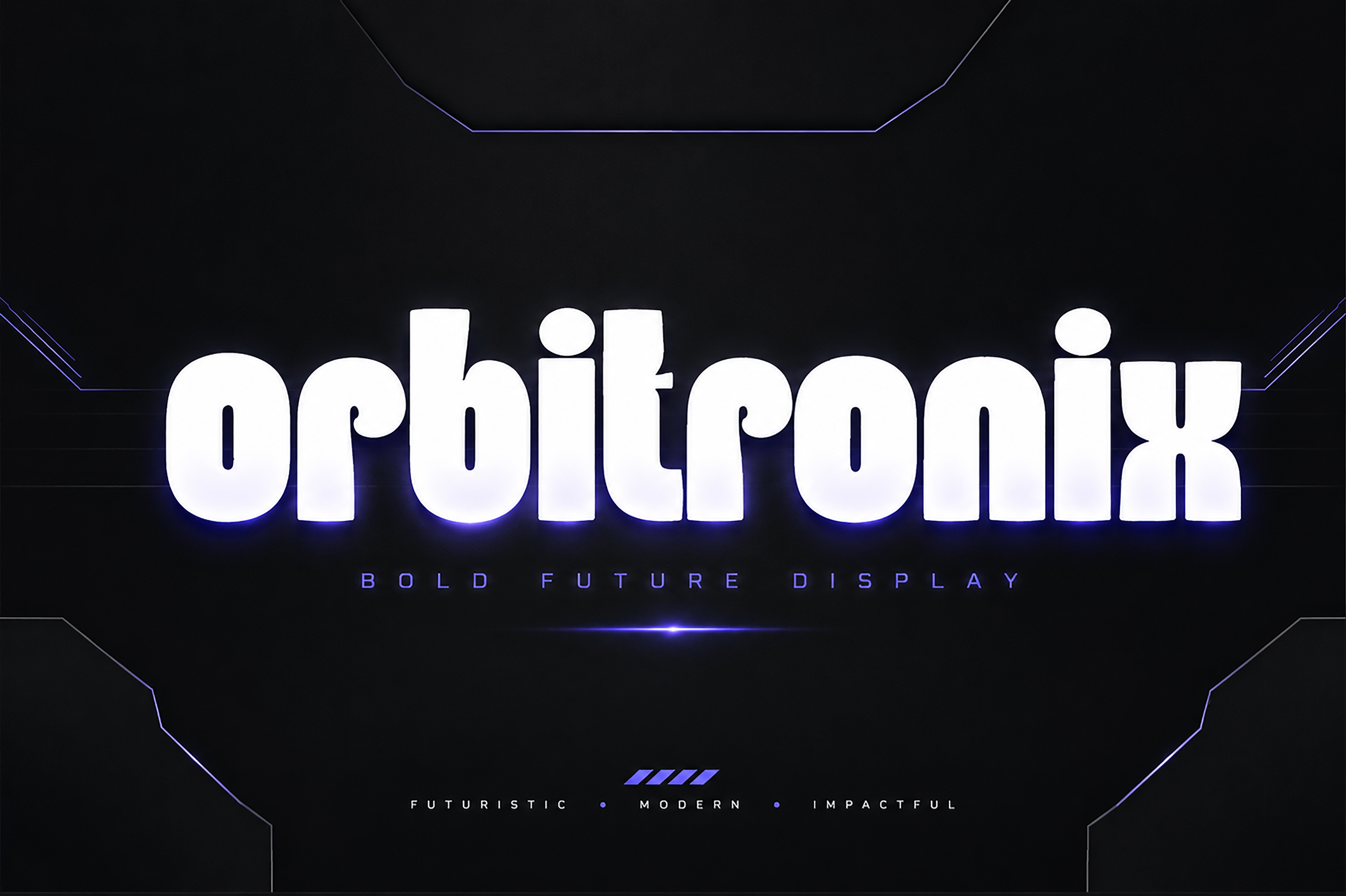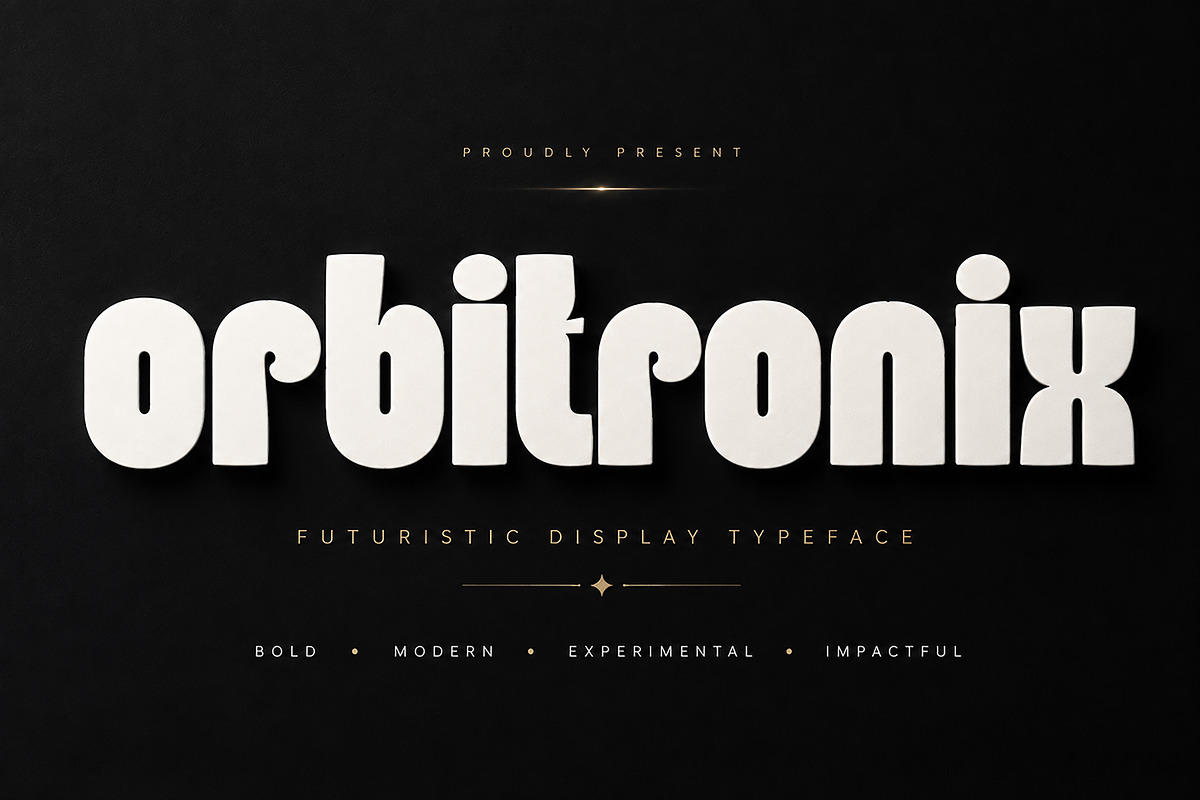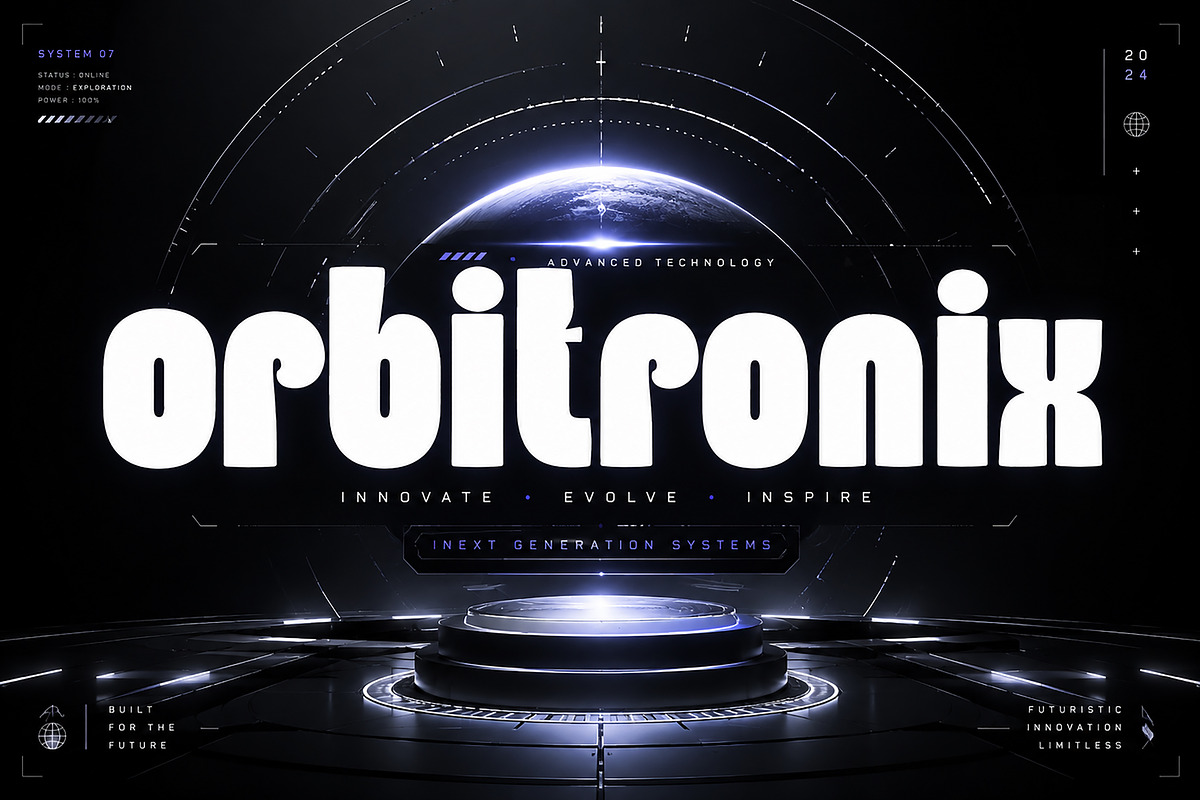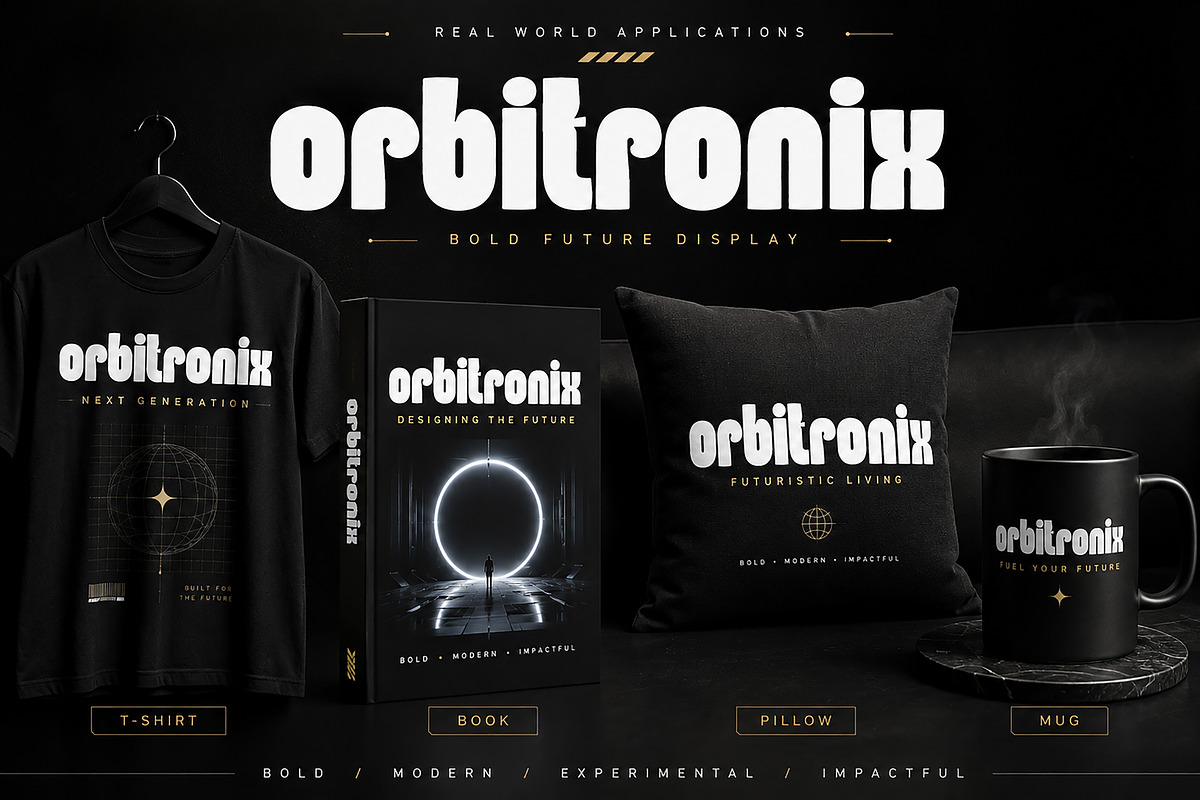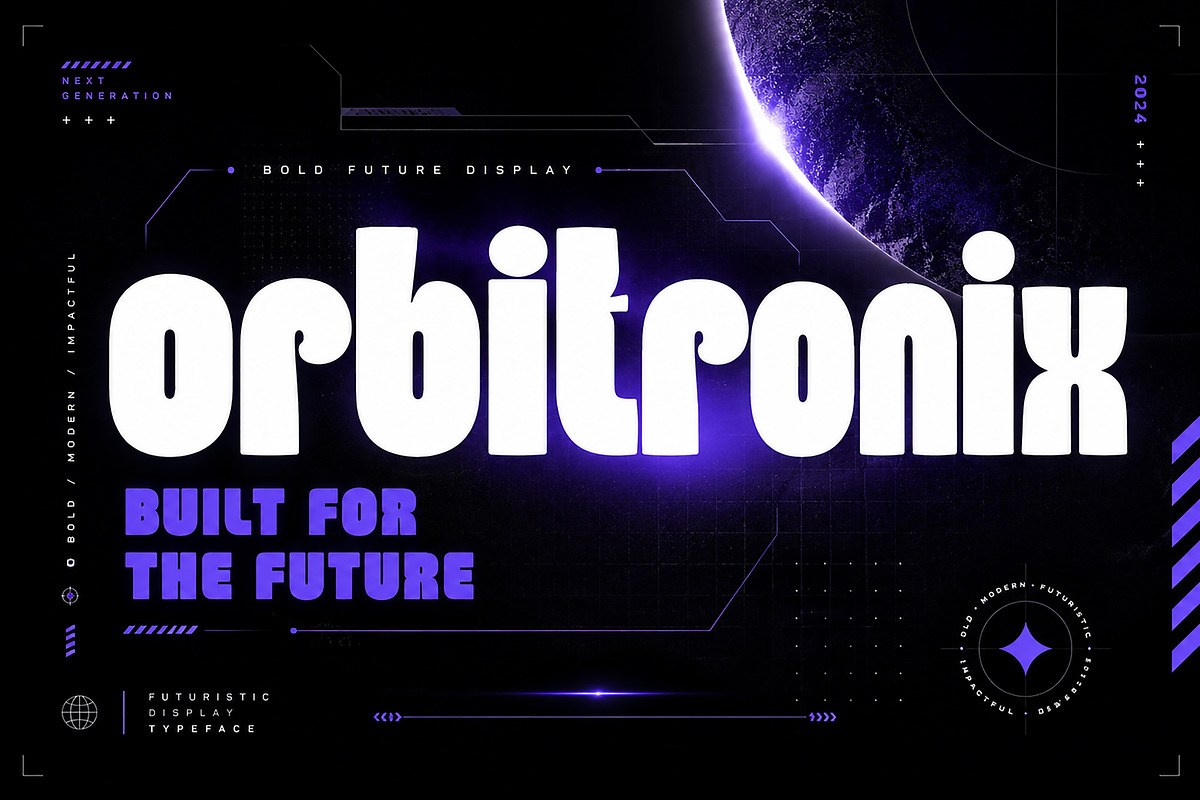
Orbitronix — Futuristic Display Font
Orbitronix is a bold, futuristic display typeface designed to make a powerful visual impact. With its heavy proportions, distinctive letterforms, and modern sci-fi personality, Orbitronix is perfect for designs that need to feel bold, experimental, energetic, and forward-thinking.
Its strong presence makes it ideal for branding, posters, headlines, logos, apparel, packaging, editorial designs, social media graphics, book covers, merchandise, and futuristic technology-themed projects.
Whether you're creating a striking brand identity or a high-impact promotional design, Orbitronix brings a unique futuristic character to your typography.
✦ Perfect For
Futuristic Branding & Logos
Posters & Headlines
Sci-Fi & Technology Designs
Apparel & Merchandise
T-Shirt Designs
Book & Album Covers
Editorial Design
Advertising & Promotional Graphics
Gaming & Esports Projects
Creative Display Typography
Style: Bold Futuristic Display
Type: Display Typeface